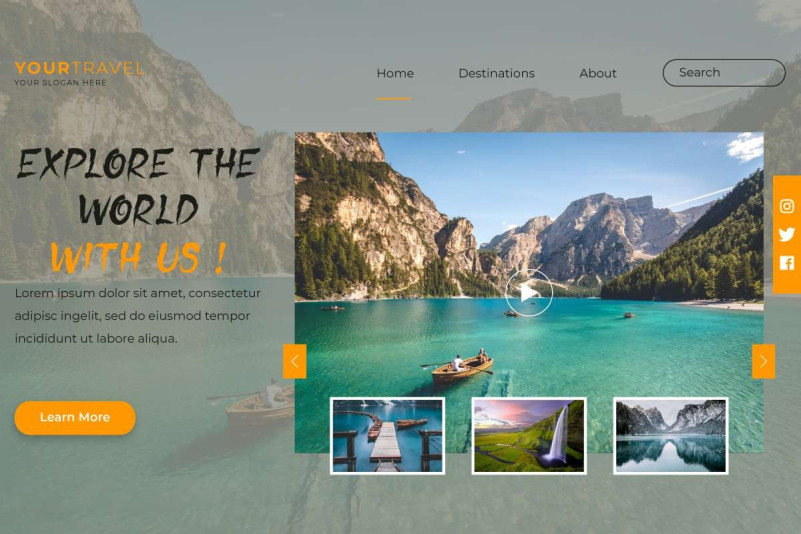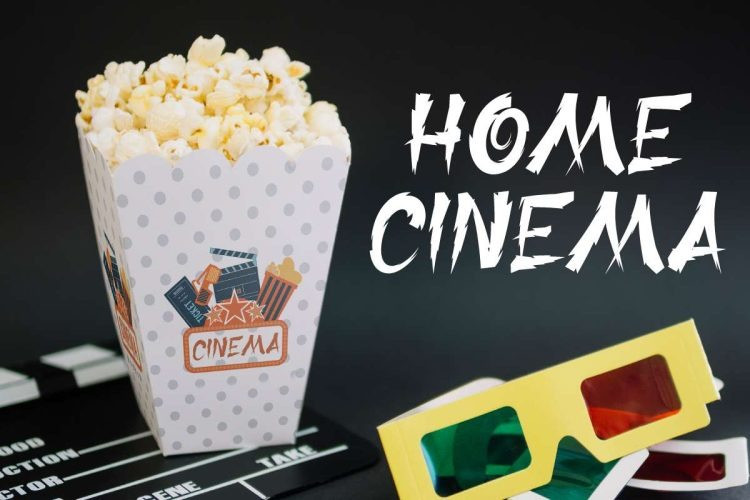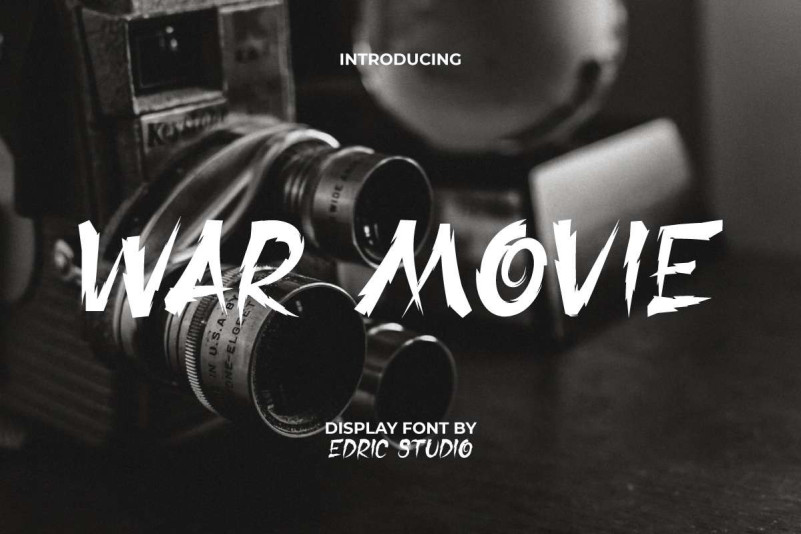
War Movie Font
War Movie Font by Edric Studio 21,447 downloads
War Movie Font
War Movie Display Font is a sharp brush writing display font with special action, sporty and horror themed exclusively designed by EdricStudio. This font is inspired by movies that tell the story of battles and mysteries, creating a unique character that is perfect for any industry, including: accessories, band, barbershop, café, clothing brand, game, movie, photography, printing, publishing, sport, travel, wood carving, and much more.
War Movie Font comes with full set of ALL CAPS for one size on Uppercase and Lowercase Basic Characters, Number, a large range of Punctuation and Symbol. It has a stunning characters set, perfectly managed with well spaced and kerning. War Movie Font will be able to complement for any project (with extended license) including: brand logo, brochure, business card, headline, poster, product packaging, screen print, signage, stationary, watermark, website, etc.